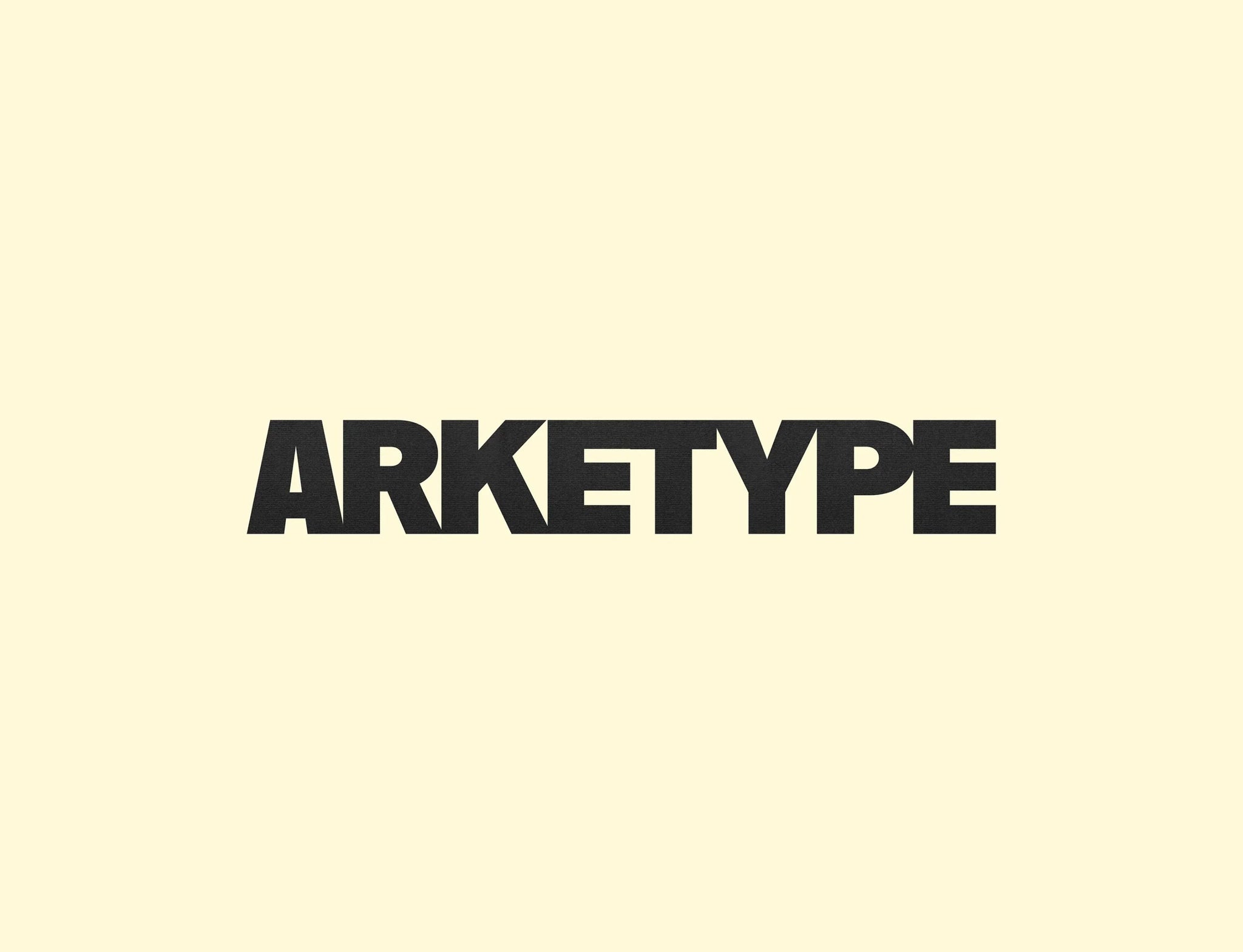
ARKETYPE
Templates are necessary, democratising and often the only option for many businesses operating without a dedicated creative team
Yet they carry a compromise – a concession that good design requires time and resources. Celsey Jones, Founder of Wales-based independent studio Studio&Jones, saw this gap differently. Rather than accepting that templated design must look templated, she built ARKETYPE as a brand that applies the same care of custom identity work to downloadable, editable creative assets.
The concept began with a straightforward observation. Studio&Jones had developed a distinctive visual language through years of identity work. But it only existed within those commissioned projects. ARKETYPE translates this DNA into ready-to-use design systems accessible to founders, creatives and brands who need polish without starting completely from scratch.
Each ARKETYPE release functions as an ‘Edit’ rather than a simple template pack. “It means we treat templates like brand systems, not throwaway graphics,” Jones explains. An Edit begins with a clear creative direction, which shapes the entire system before any layouts are touched. Templates then come from this foundation. The result holds together visually whilst adapting easily to different brands and applications.
BLANC, the debut Edit, comprises 60-plus Instagram templates spanning feed posts, carousels and stories. The templates ship in 1080px × 1350px for feed content and 1080px × 1920px for stories – they’re optimised for scroll-stopping clarity with the minimal, versatile aesthetic the studio has become known for. Everything is fully editable in Canva and Figma (depending on your chosen version), with users able to adapt copy, imagery and colour to suit their brand.
The typographic pairing behind ARKETYPE’s identity reflects Jones’ broader philosophy of considered simplicity. Neue Haas Grotesk Bold provides the structural backbone – clean, modern and functional enough to work across digital platforms. PP Kyoto serves as its counterpoint, introducing a softer, more editorial quality that adds personality and warmth. Colour follows the same principle of support. The palette strips back to black, off-white and soft yellow. It’s neutral enough to bring calm and cohesion whilst allowing the content and templates themselves to stand out.
The challenge with template systems lies in avoiding two things: feeling too generic or too rigid. Generic templates lack distinctive character. Rigid ones force you into frameworks that feel foreign. Jones’ approach addresses both by establishing voice and tone before touching any layouts. “Each Edit has its own rhythm and personality from the start, and that’s what gives it depth,” she explains. “The structure brings clarity, but it’s the voice and visual tone that make it feel like more than just a template.”
The ARKETYPE Edits are deliberately not designed for specific industries. Whilst copy within templates may suggest particular use cases, the overall design remains flexible and adaptable across multiple audiences and sectors. Each Edit is built around brand behaviour, energy and aesthetic rather than industry conventions, allowing the assets to work across various applications. This positions ARKETYPE as a tool for all brands rather than a library of industry-specific solutions.
The social templates mark only the beginning of the project’s ambition. Over time, ARKETYPE will evolve into a complete suite of digital brand tools, with each Edit expanding into a full ecosystem of social templates, website layouts, sales pages, presentation decks and email templates. Every Edit will grow into a cohesive, considered product, branded from the inside out.
“ARKETYPE isn’t trying to be loud or trendy,” Jones reflects. “It’s calm, intentional and built to last. Each Edit is a considered creative system – something that can be used, adapted and executed without ever feeling disposable.” For brands and creatives who’ve accepted that templates means compromise, ARKETYPE offers a counterargument: that downloading a template and commissioning custom work needn’t feel like entirely different experiences.